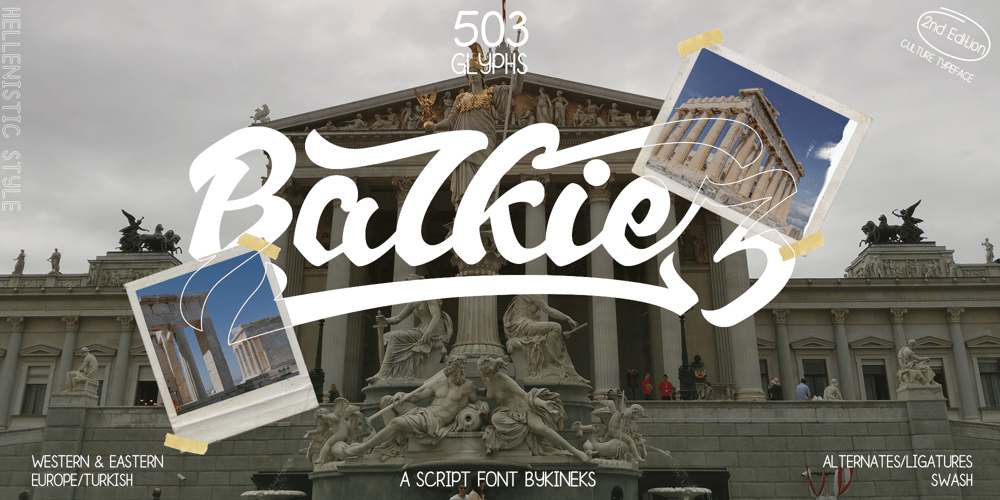
Balkiez Hellenistic
Balkiez Hellenistic font
Balkiez Hellenistic Font Family was designed by Dede Kurniawan and published by Bykineks. Balkiez Hellenistic contains 1 styles and family package options. Entered into the bykineks culture typeface edition. This 2nd edition typeface is inspired by the meander curves and waves often found in the culture and art of the Hellenistic era. The specifications for this font are bold typeface script, high contrast slope classification, stress axis, and X height. Comes with various alternatives for each upper and lower case letters. small offer a variety of silicates or optimal shapes for a given placement, having binding and sweeping characteristics. Suitable for coffeeshop branding needs, web design, stickers, apparel, invitation cards, and others. Consists of 503 glyphs support Languages ​​: Afrikaans, Albanian, Asu, Basque, Bemba, Bena, Breton, Chiga, ColognianCornish, Croatian, Danish, Dutch, Embu, English, Esperanto, Estonian, Faroese, Filipino, Finnish, French, Friulian, Galician ,Double,Germany,Gusii,Hungary,Inari Sami,Indonesia,Ireland,Italy,Jola-Fonyi,Kabuverdianu,Kalaallisut,Kalenjin,Kamba,Kikuyu,Kinyarwanda,Lithuania,Lower Sorbia,Luo,Luxembourg,Luyia,Machame, Makhuwa-Meetto , Malagasy, Malt Manx, Meru, Morisyen, North Ndebele, Norwegian Bokmål, Norwegian Nynorsk, Nyankole, Oromo, Polish, Portuguese, Quechua, Romansh, Rombo, Rundi, Rwa, Samburu, Sango, Sangu, Sobia ,Shambala , Somalia, Spain , Swahili, Swedish, Swiss German, Taita, Teso, Turkish, Upper Sorbian, Uzbek (Latin) Volapük, Vunjo, Walser, Zulu.